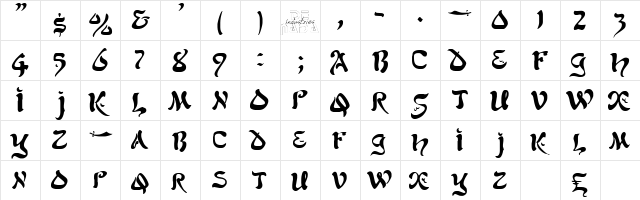
Thorn In My Pride 1 Regular
Design Context for Thorn In My Pride 1 Typeface
Thorn In My Pride 1 is a composed and adaptable typeface that performs quietly and consistently across a wide range of design contexts.